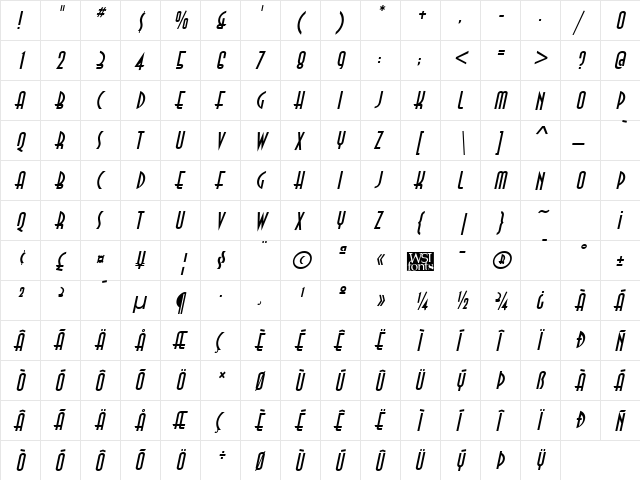
Anastasia Italic
Design Context for Anastasia Typeface
Anastasia is a composed and adaptable typeface that performs quietly and consistently across a wide range of design contexts. Its italic angle brings a sense of urgency and motion to the letterforms.
Pro Tip: Try Anastasia for annotation and caption copy alongside an upright companion — the contrast in angle creates a dynamic but ordered typographic system.